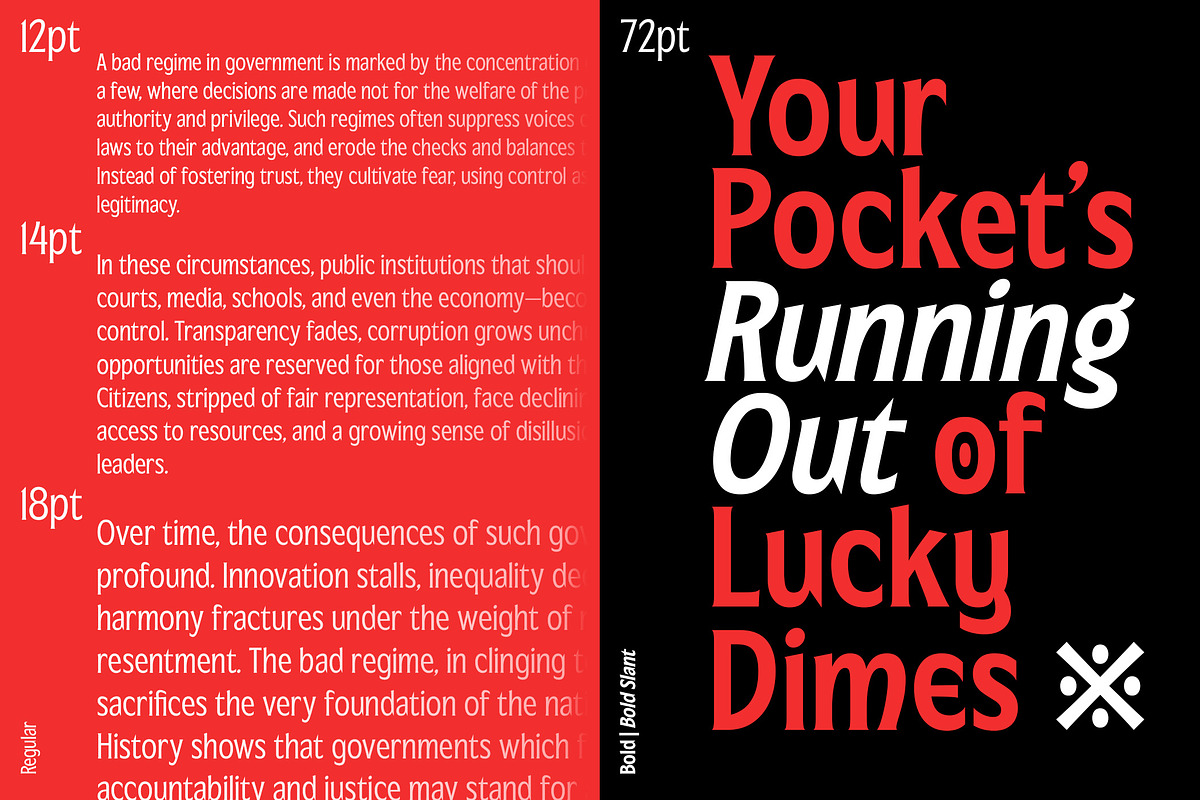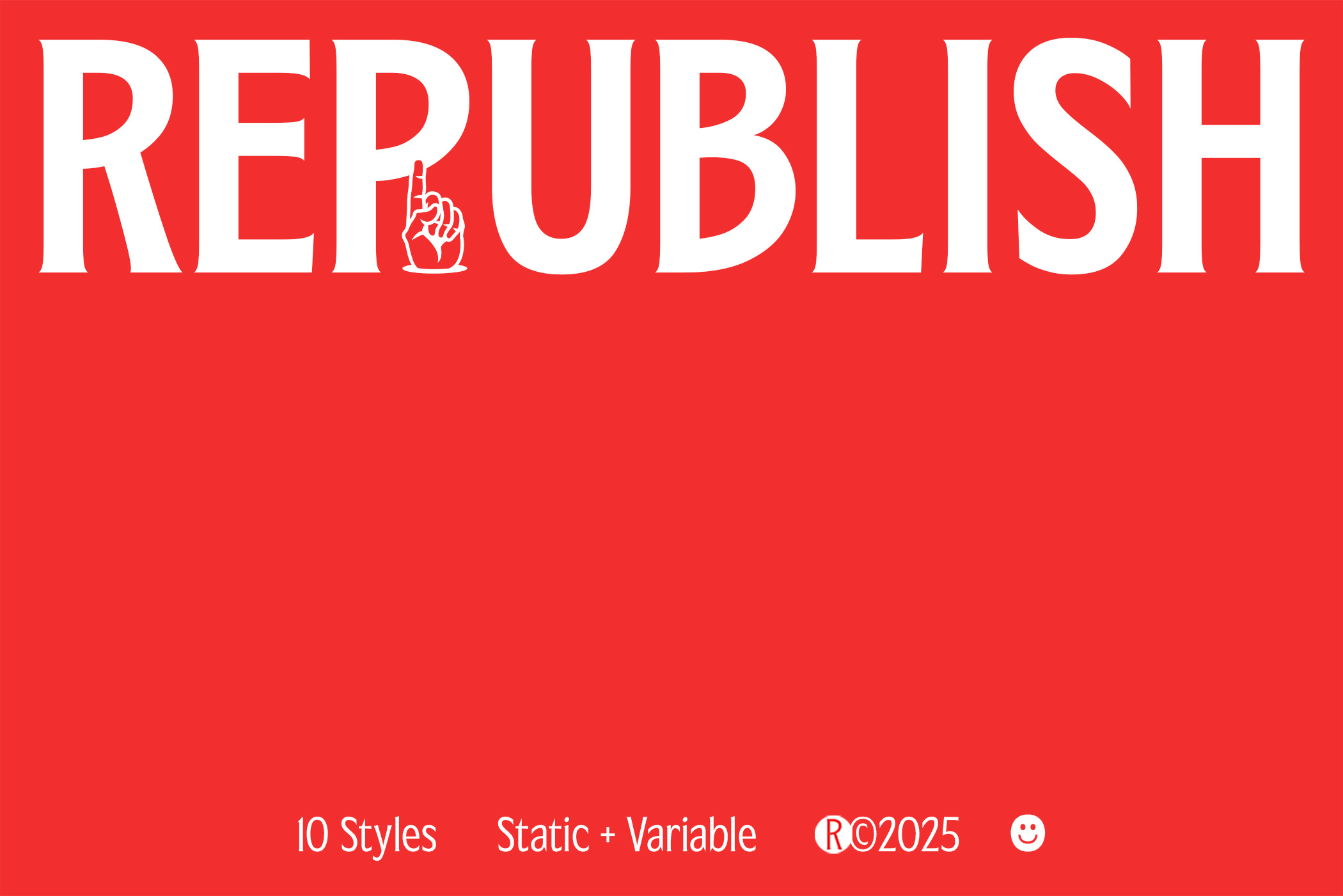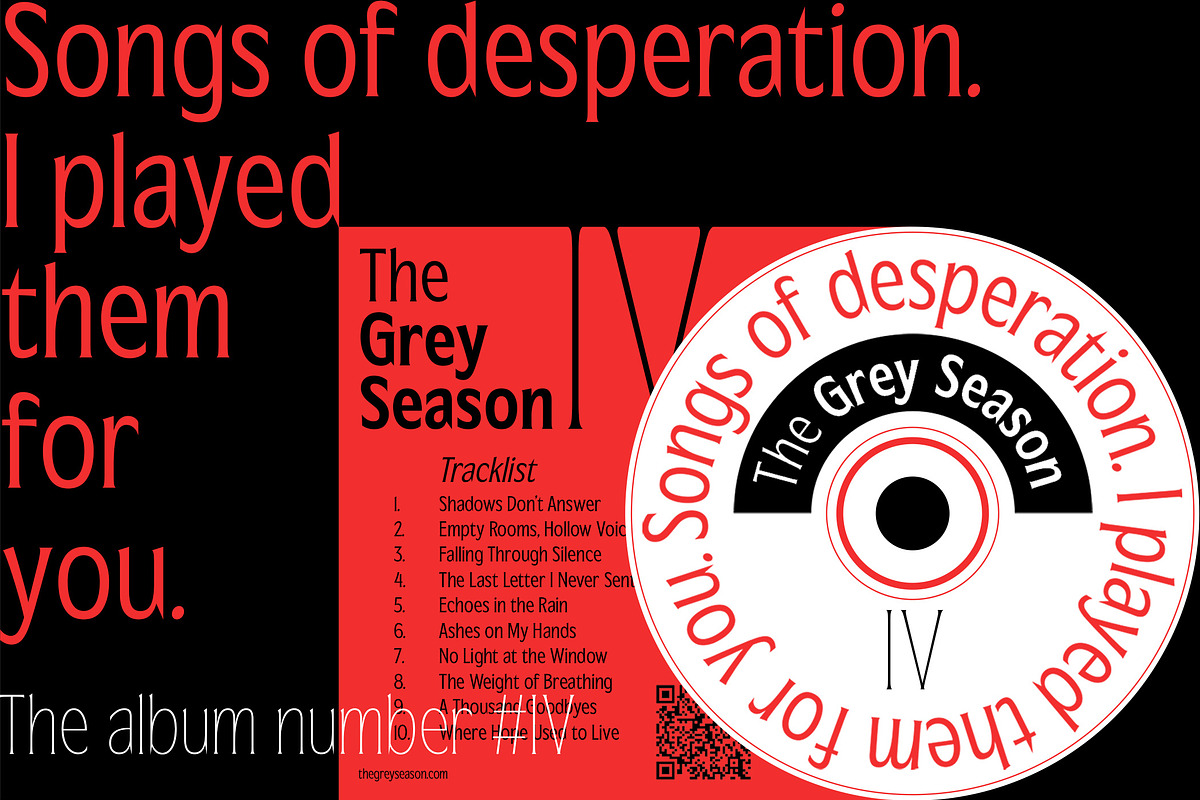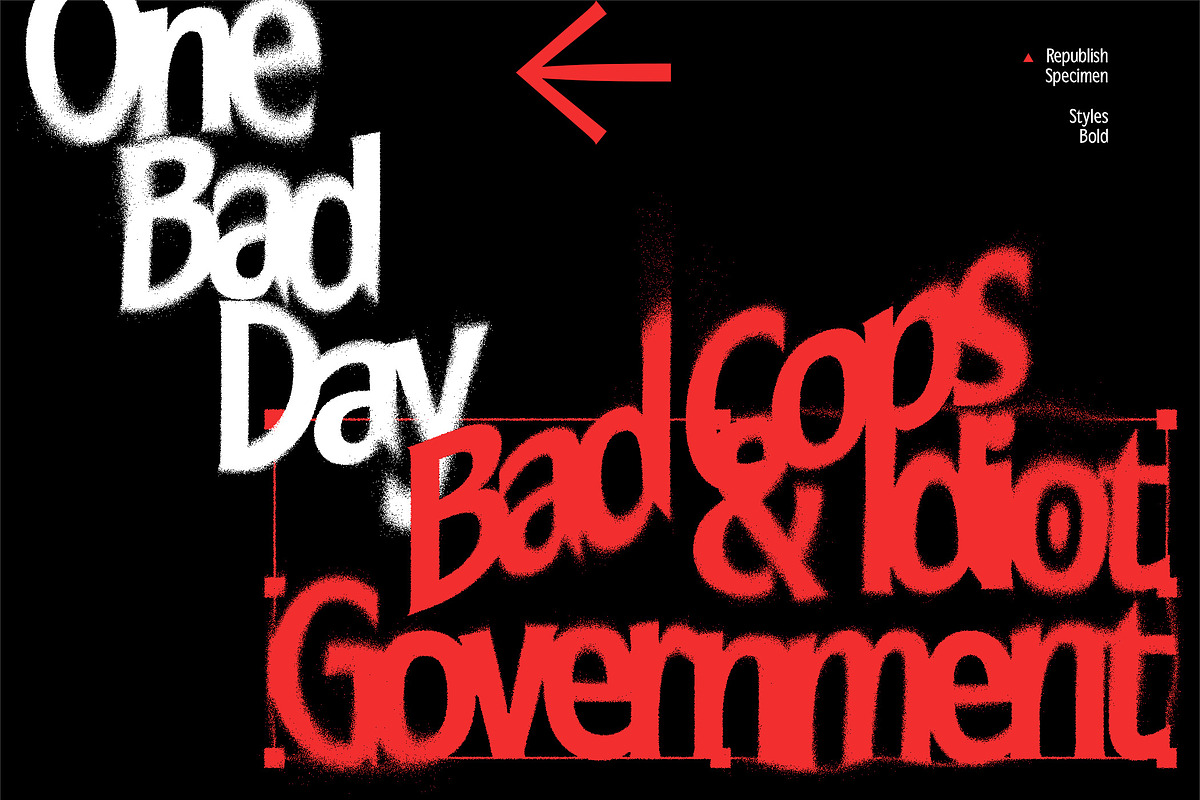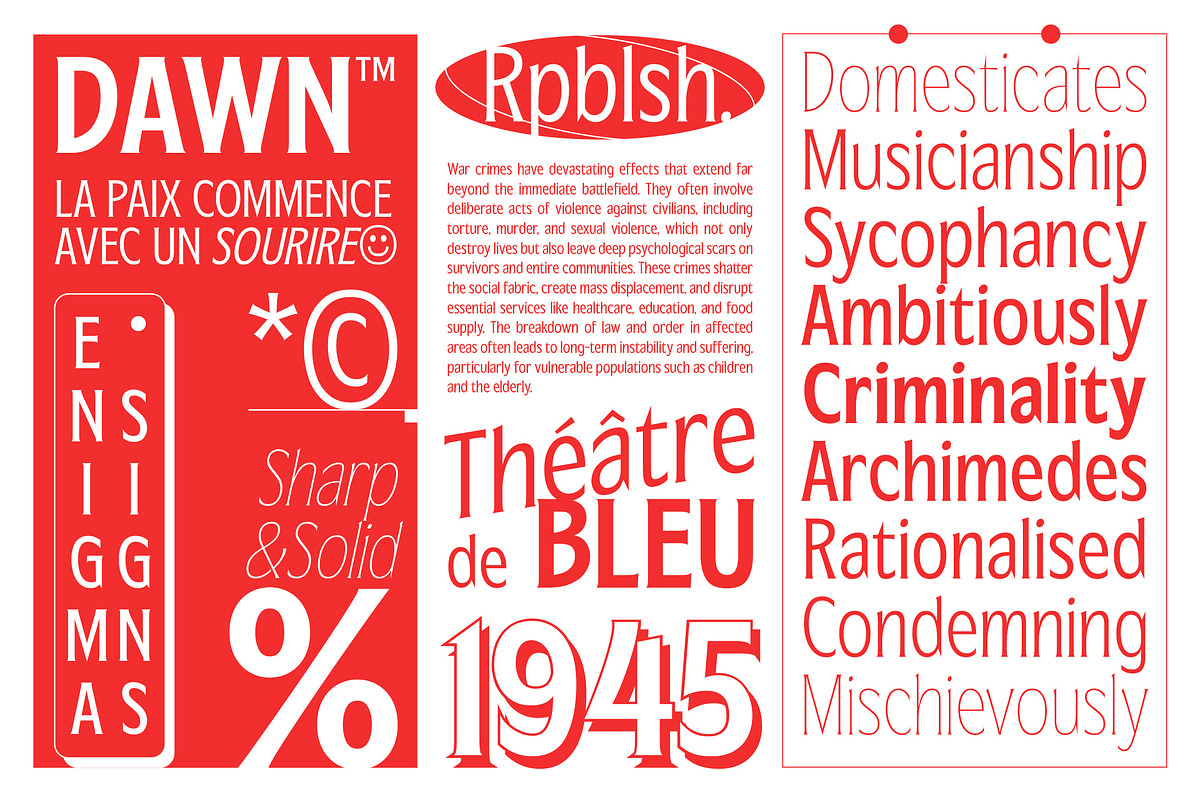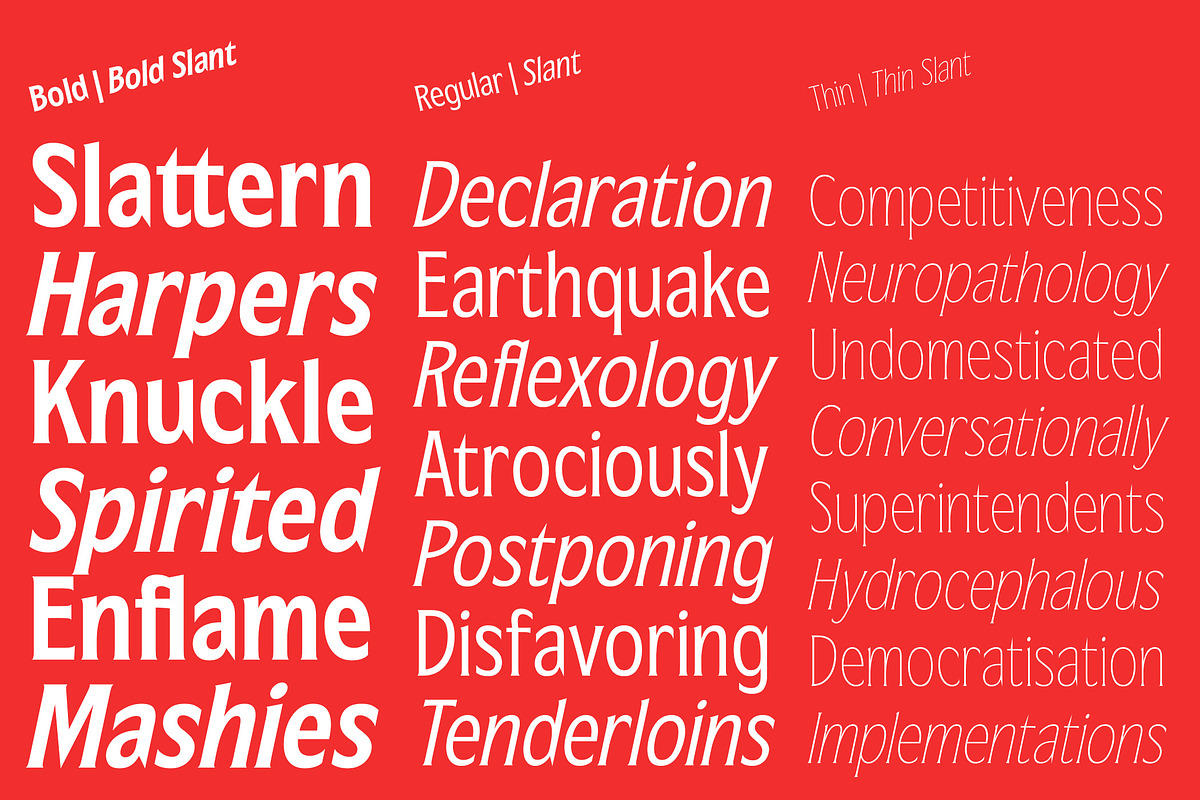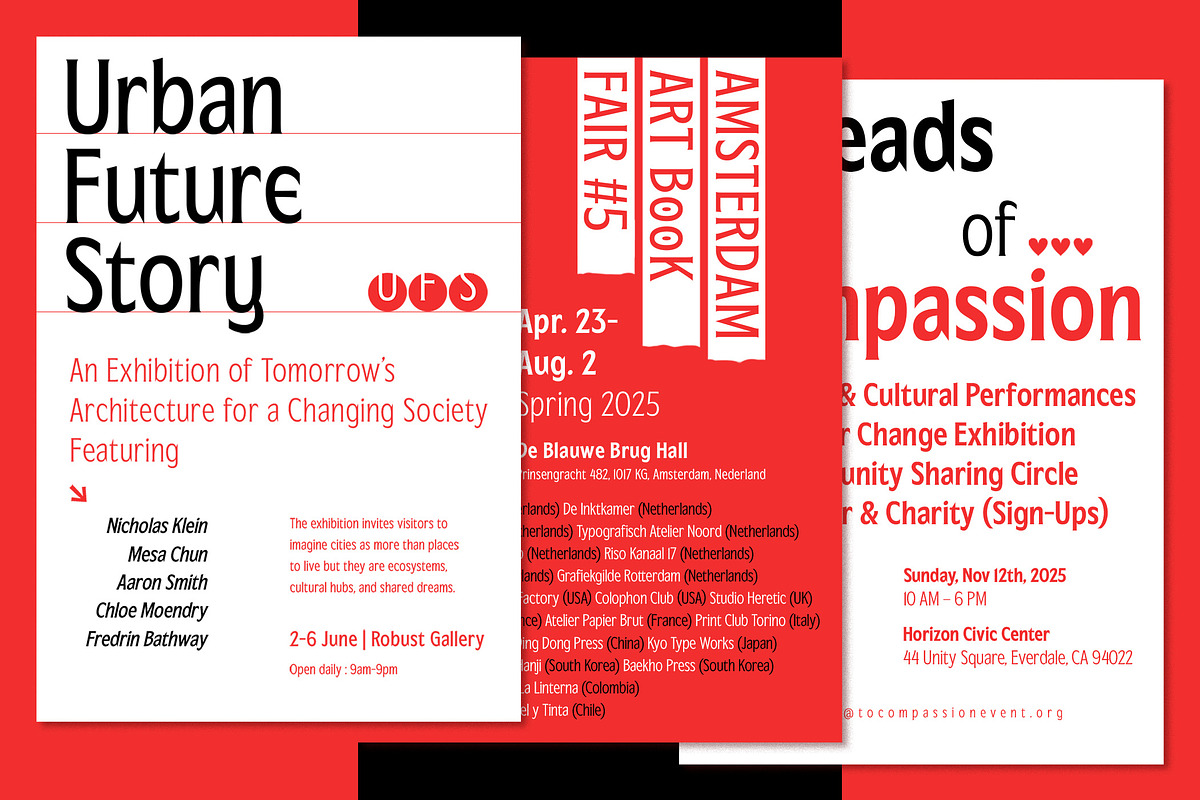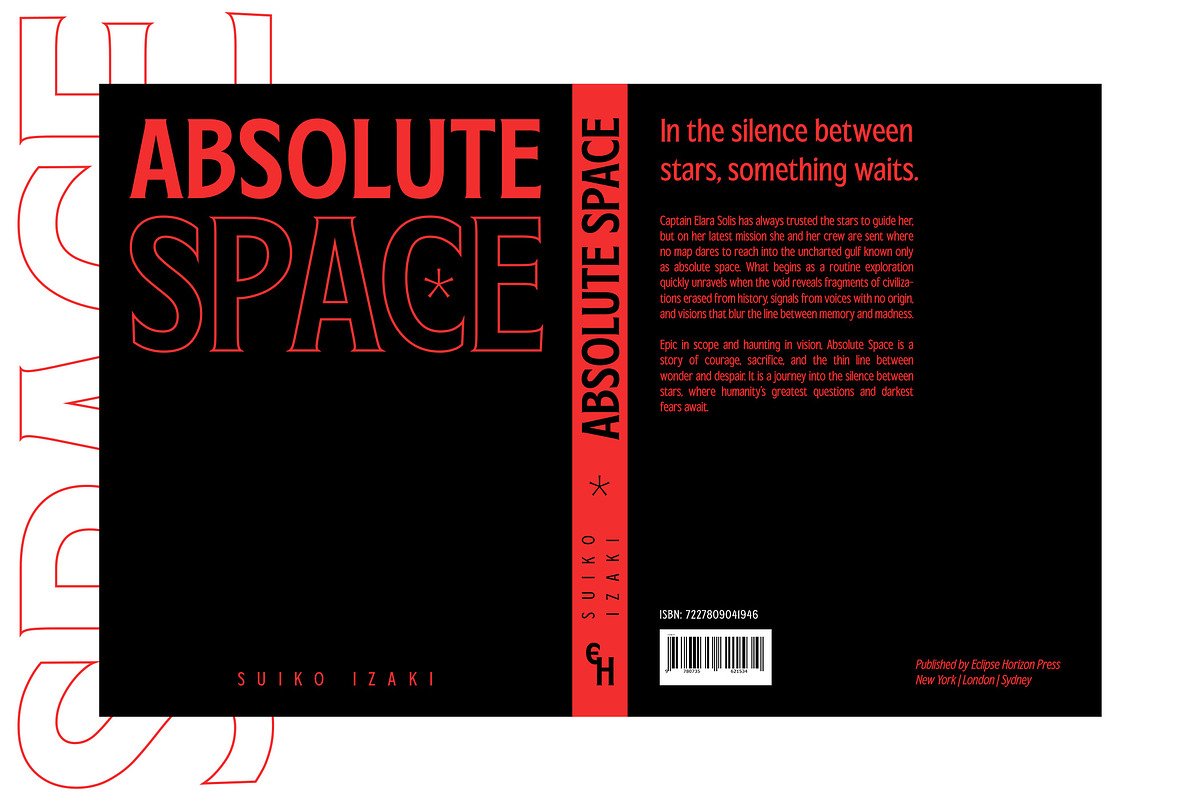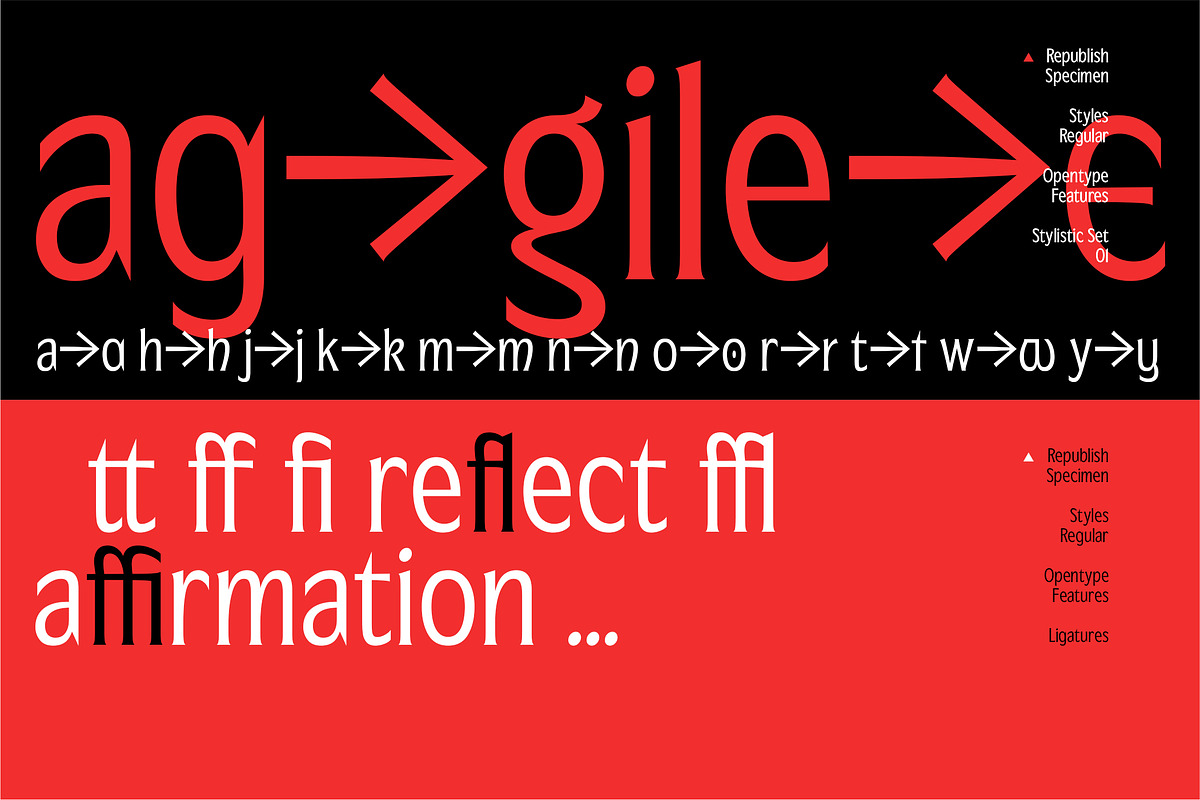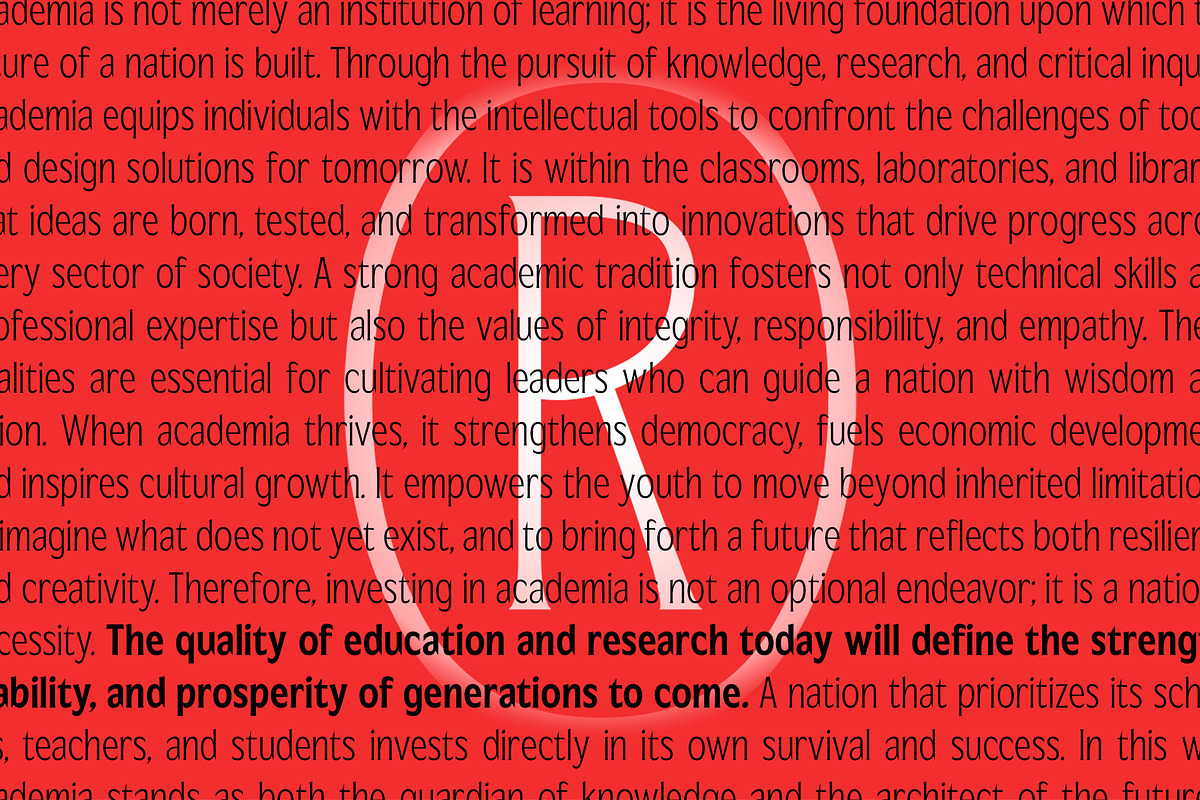
Republish Variable Font
Republish is a flared serif typeface inspired by bold lines and sharp edges. It reflects values of courage, fearlessness, and honesty, making it a statement font for those who want their words to carry weight.
Designed in 10 styles featuring regular and slanted versions, variable font option, also possible for up to 70 languages, Republish offers flexibility without losing its striking presence. Its versatility makes it suitable for headlines to refined editorial layouts, branding, posters, packaging, and digital design.